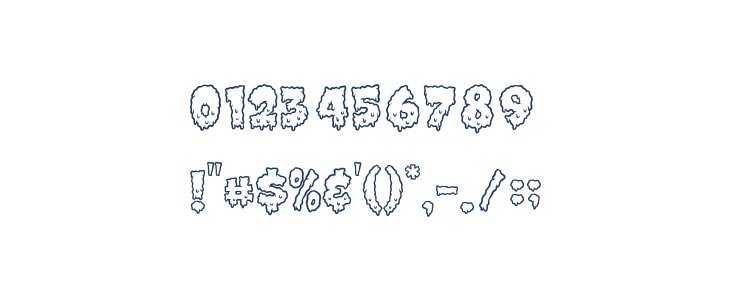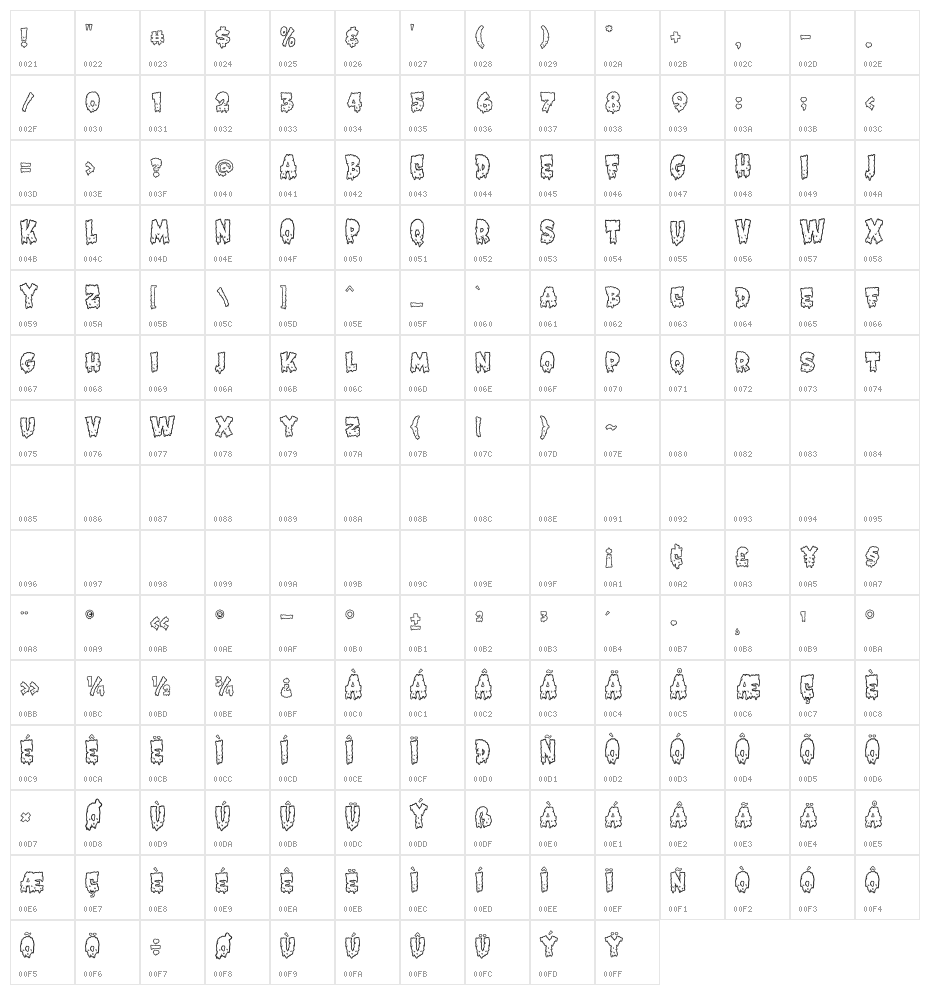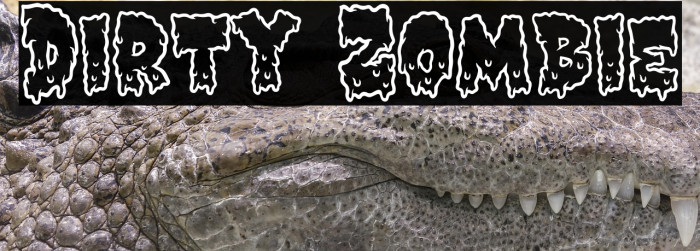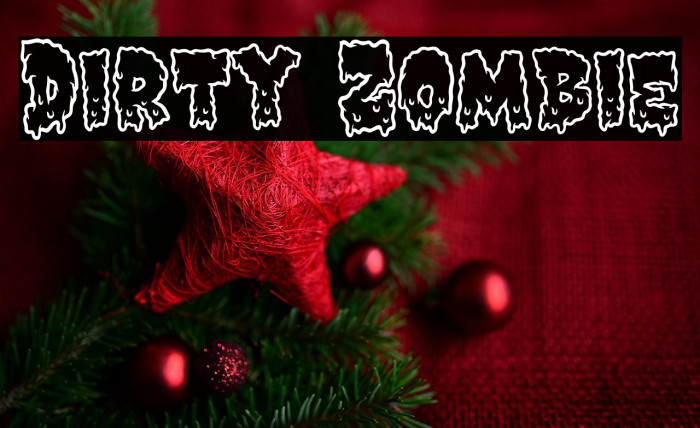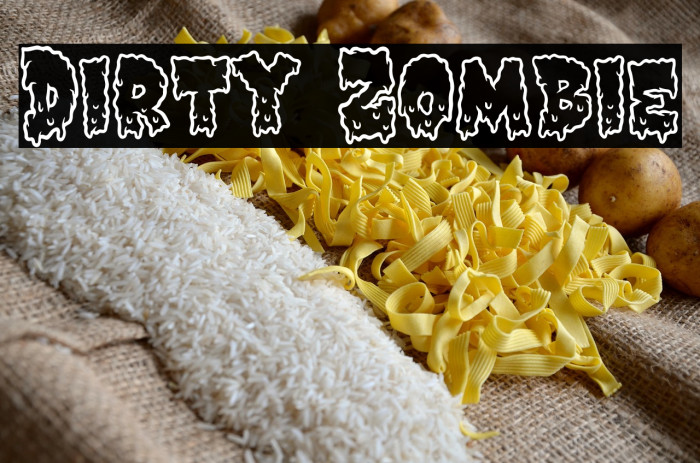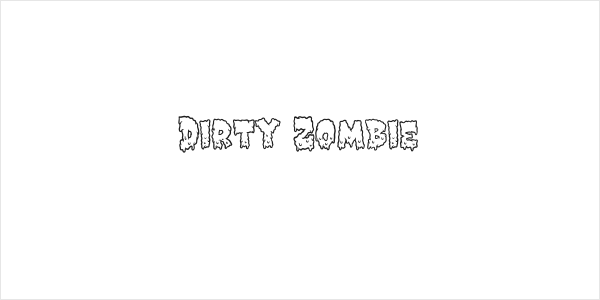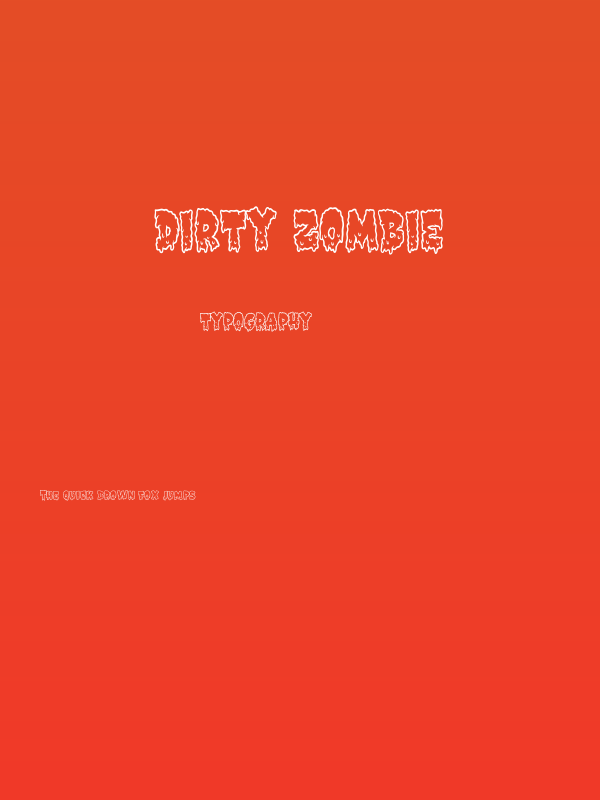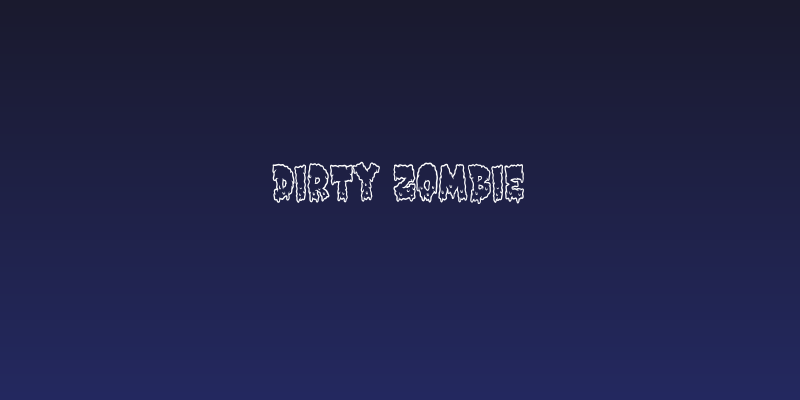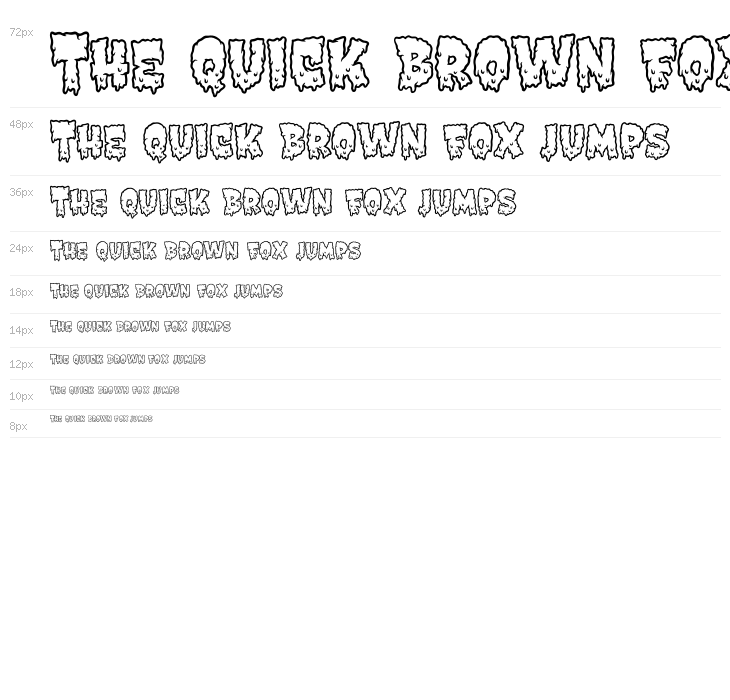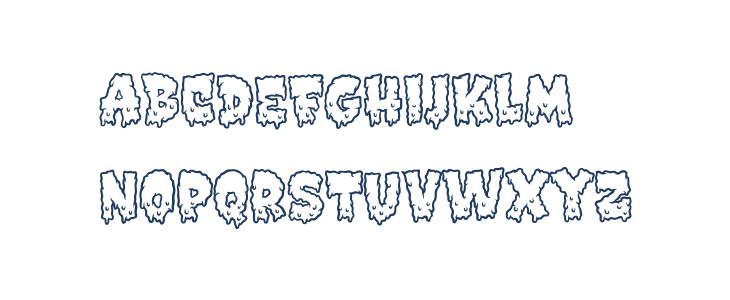
Dirty Zombie Font
Dirty Zombie Description
This font features a unique, horror-themed design with letters that appear to be dripping or melting, reminiscent of a zombie or slime aesthetic. The characters are bold and have an irregular, jagged outline that gives them a distressed and eerie appearance. This style is perfect for creating a spooky or unsettling atmosphere, making it ideal for Halloween-themed projects or anything that requires a touch of the macabre. The font includes a full set of uppercase and lowercase letters, numbers, and a variety of special characters, all maintaining the same dripping effect. The overall look is both playful and creepy, capturing the essence of a classic horror movie title or a haunted house attraction.
| Proposed Projects | Perfect for Halloween invitations, horror movie posters, haunted house flyers, and themed party decorations. |